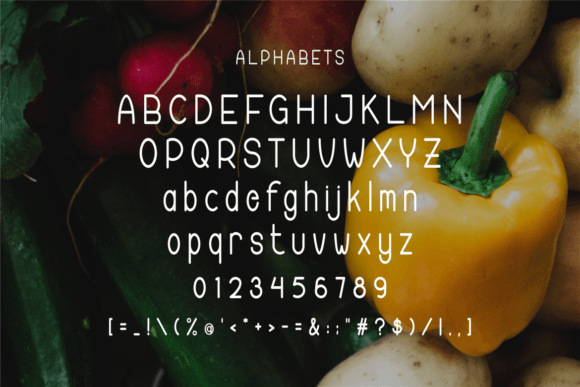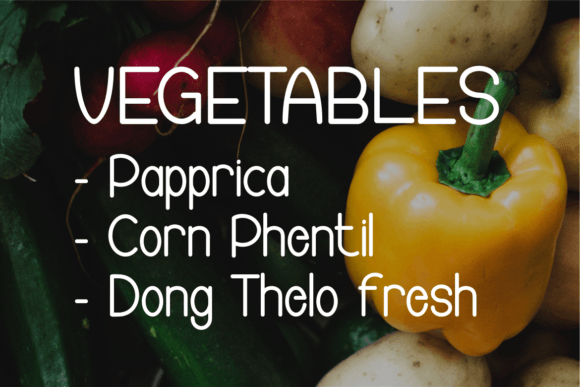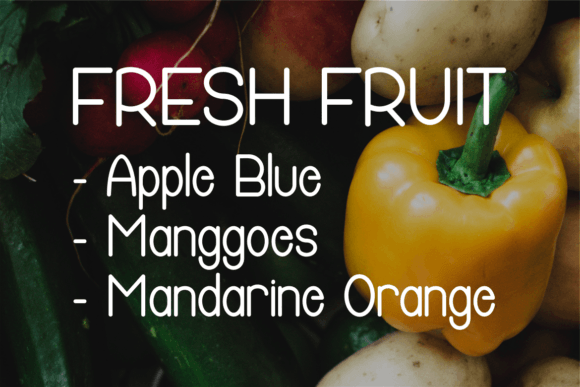
The Apple Nasyobe Font: A Delicious Choice for Foodies and Designers
I’ll never forget the time I was working on a project for a trendy new restaurant, and I just couldn’t find the right font to capture their fresh, farm-to-table vibe. The client wanted something modern, yet approachable; something that would make their menu look appetizing, not just elegant. That’s when I stumbled upon the Apple Nasyobe font, and let me tell you, it was love at first sight! 😍
- ✨ The clean, sans-serif lines make it incredibly versatile for food-related branding, from sweet treats to savory delights.
- ✅ It’s surprisingly legible, even at smaller sizes, which is a must for menus, labels, or any design where readability is key.
- 💡 The font’s subtle rounded edges give it a friendly, approachable feel that’s perfect for food blogs, cookbooks, or restaurant menus.
While Apple Nasyobe is an excellent choice for many projects, there are a few things to keep in mind:
- ⚠️ It might not be the best fit for very formal or traditional brands, as it leans more towards a casual, modern aesthetic.
- 🤔 Some users have noted that the font can look a bit too similar to other sans-serif fonts, so it might not stand out in a crowded design landscape.
- Experiment with OpenType features like ligatures and stylistic alternates to add some flair to your design.
The Designer Inspiration Behind Apple Nasyobe
While the origins of Apple Nasyobe might not be well-documented, it’s easy to imagine a designer with a passion for food and typography creating a font that’s both functional and beautiful. Perhaps they were inspired by the clean lines of modernist architecture and the warmth of a bustling farmer’s market.
Q: What type of projects is Apple Nasyobe best suited for?
A: Apple Nasyobe is perfect for any project related to food, drinks, or a casual, modern aesthetic. Think restaurant menus, food blogs, cookbooks, or branding for a trendy café.
Q: Does Apple Nasyobe support multiple languages?
A: As a sans-serif font with a wide range of characters, Apple Nasyobe supports multiple languages, making it a versatile choice for global brands or multilingual projects.
Q: How does Apple Nasyobe compare to other popular sans-serif fonts?
A: Apple Nasyobe stands out with its friendly, approachable feel and excellent legibility. While it shares some similarities with fonts like Helvetica or Arial, its unique character set and rounded edges give it a distinct personality.